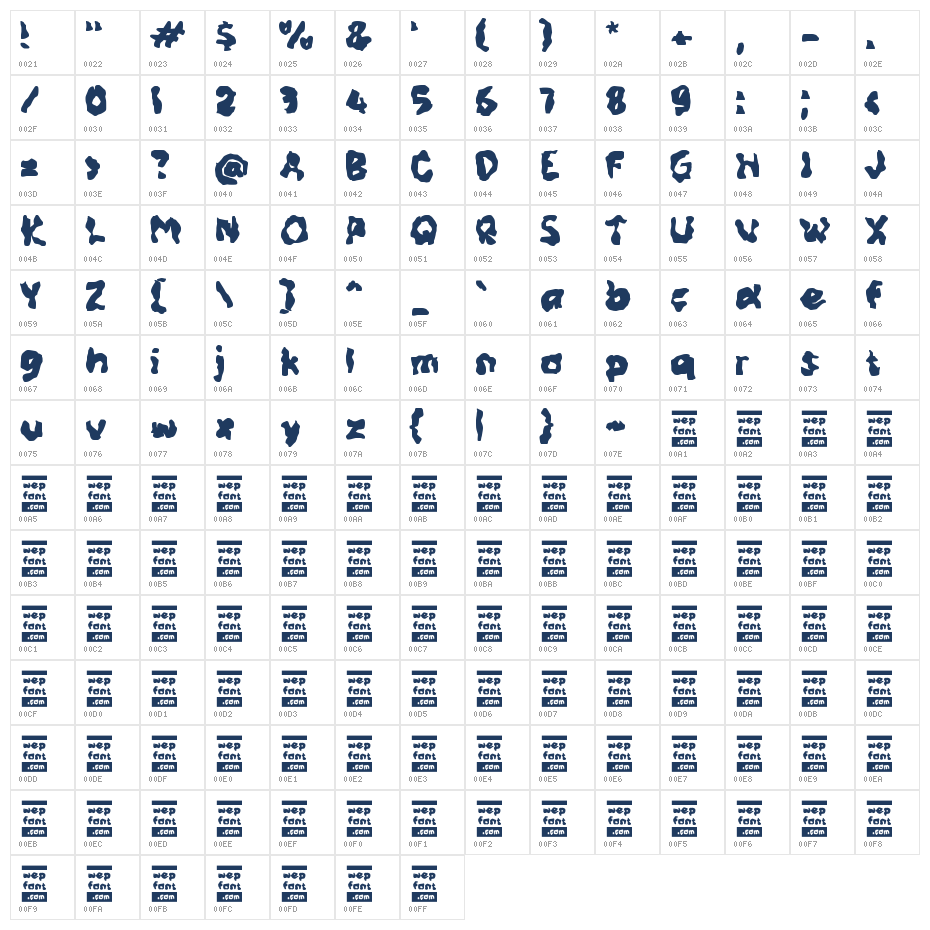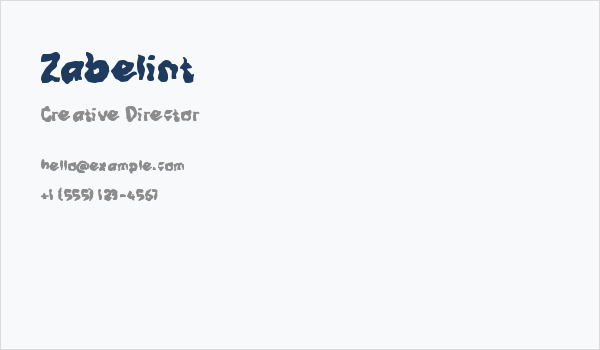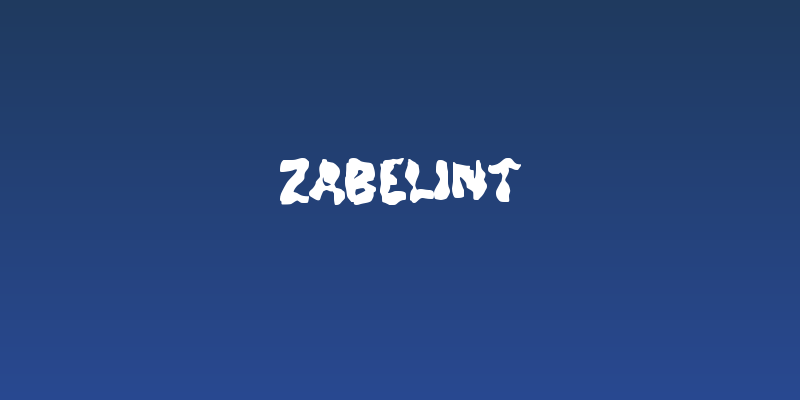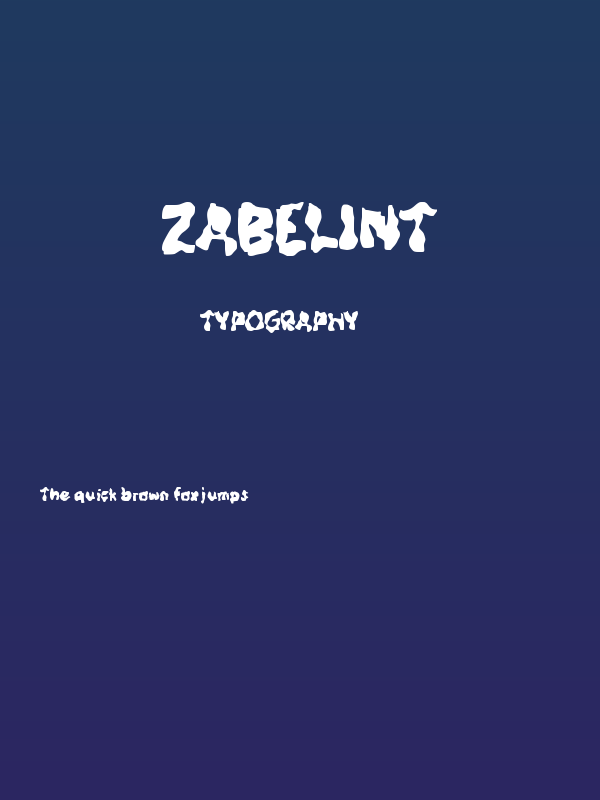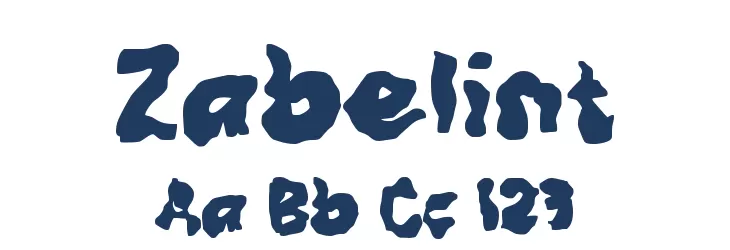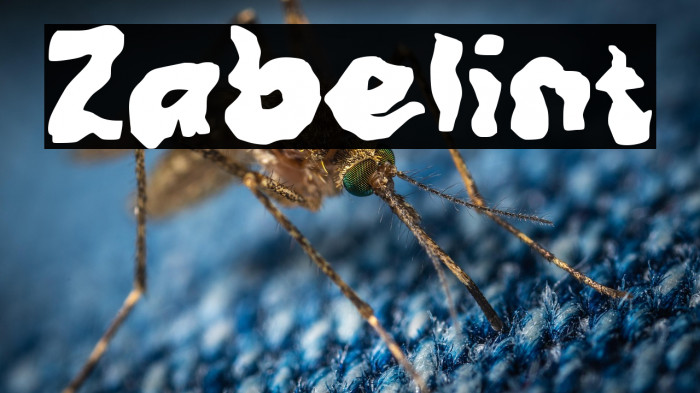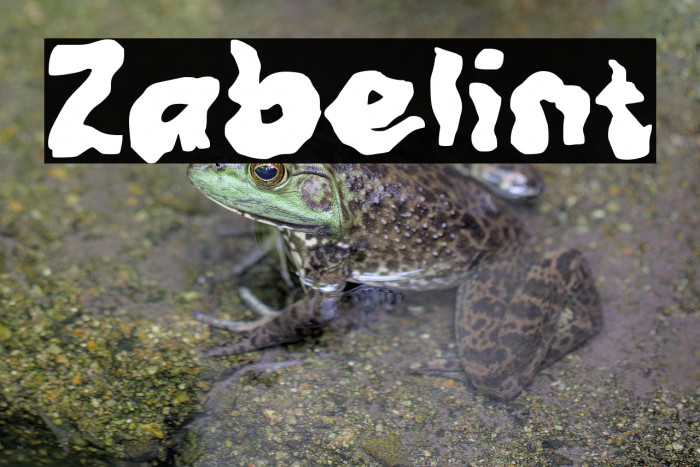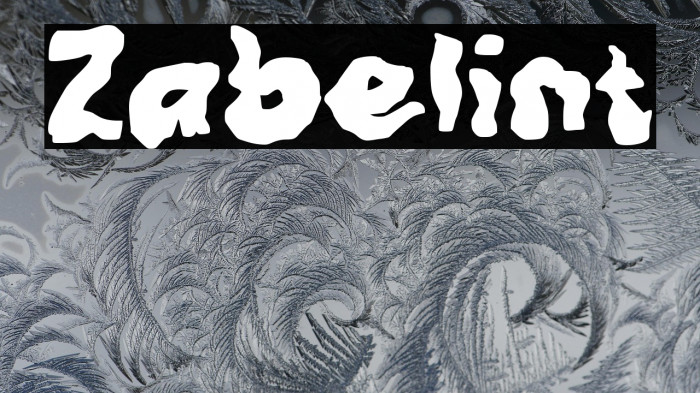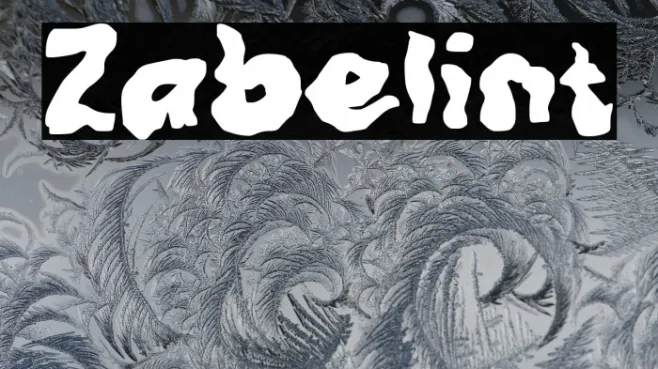
Zabelint Font
Zabelint Description
A bold, irregular, and playful handwritten style with a textured, brush-like appearance.
ZABELINT UPPERCASE
ZABELINT LOWERCASE
ZABELINT OTHER CHARS
| Overall Style | Casual, Playful, Handcrafted |
| Use Case | Headlines, Posters, Children's books, Creative branding |